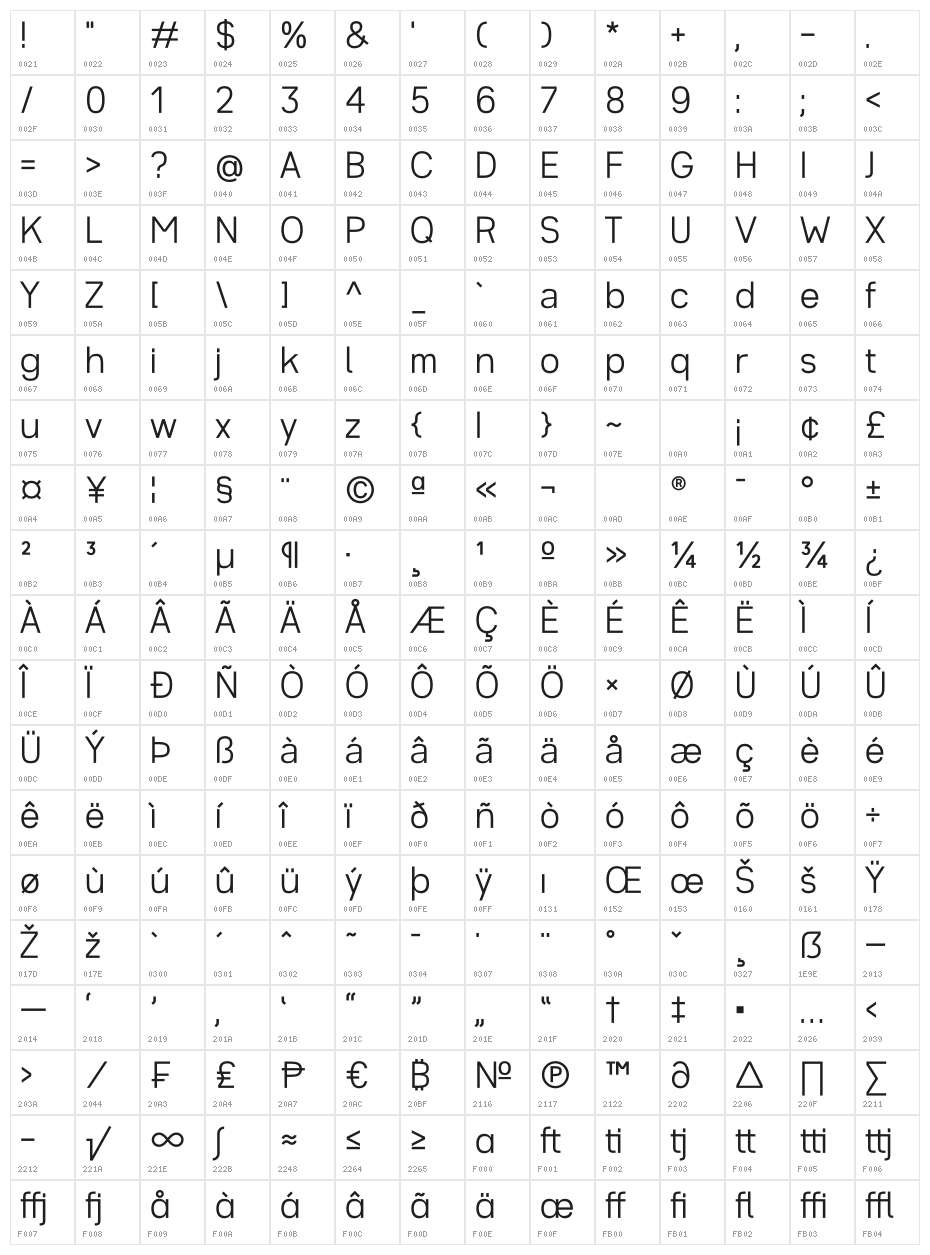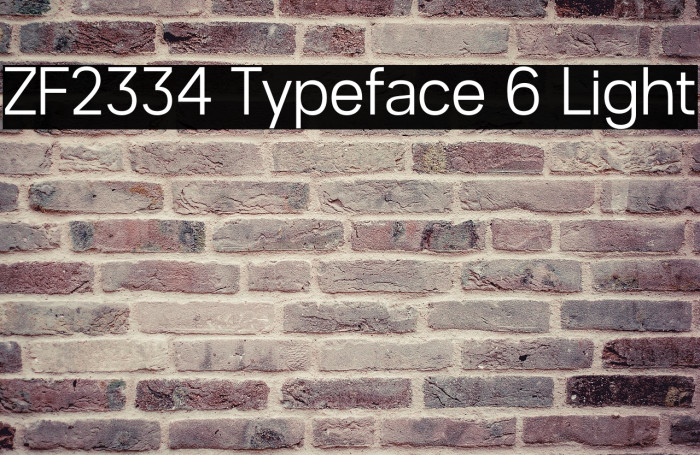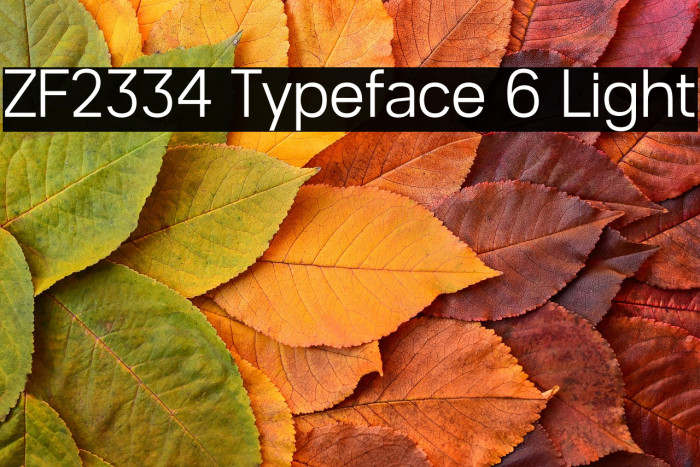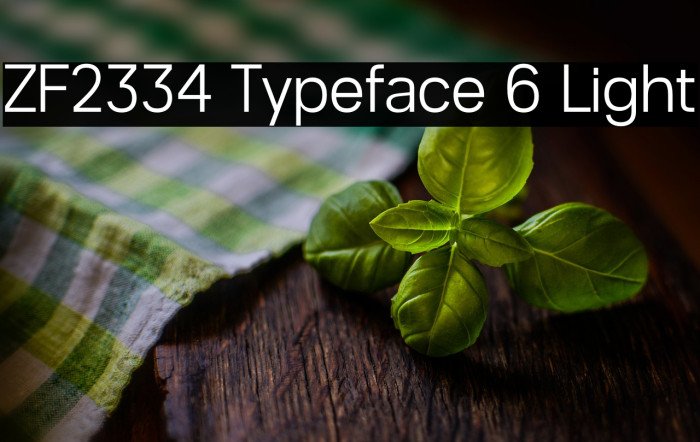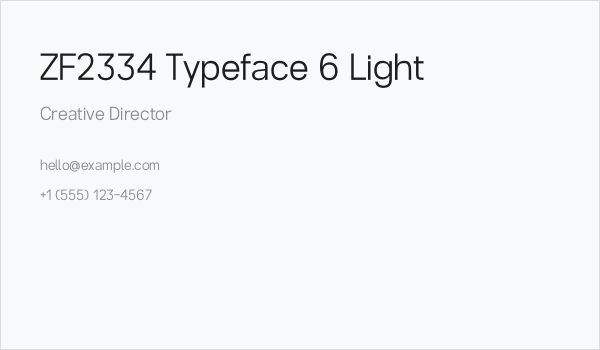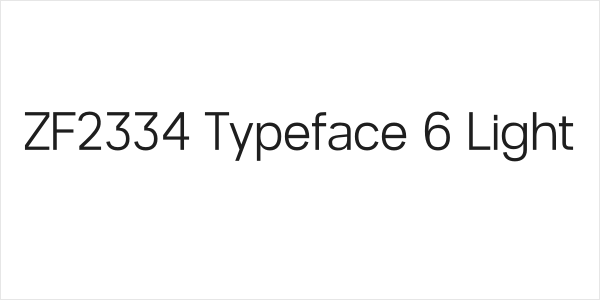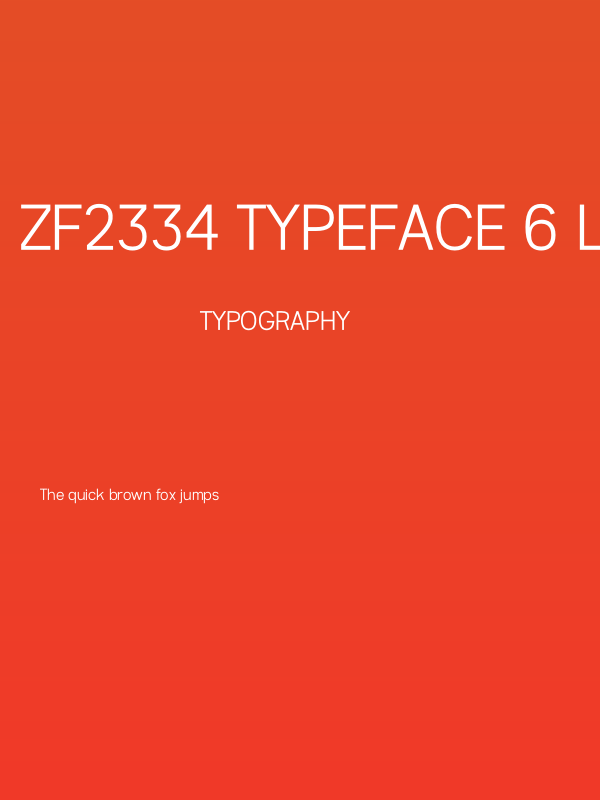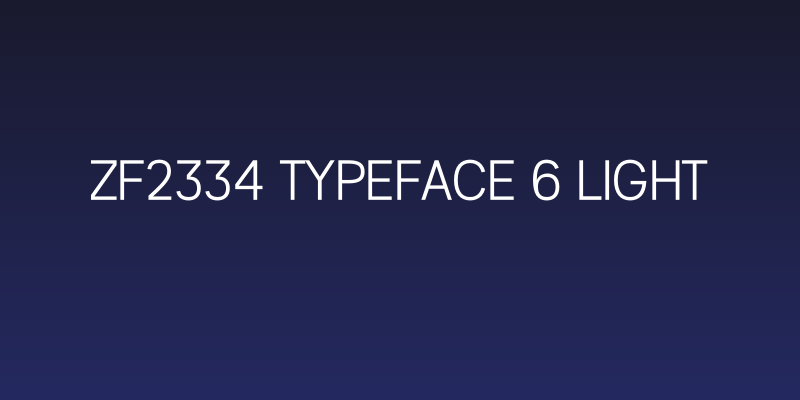
ZF2334 Typeface 6 Light Font
ZF2334 Typeface 6 Light Description
This typeface features a clean and modern design with a light weight, making it suitable for a variety of applications. The characters are well-proportioned, offering a balanced appearance that enhances readability. The font includes both uppercase and lowercase letters, numerals, and a selection of special characters. Its simplicity and elegance make it versatile for both digital and print media. The spacing between characters is normal, providing a comfortable reading experience.
| Use Case | Body text, Headlines, Digital interfaces |
| Proposed Projects | Ideal for web design, corporate branding, editorial layouts, and minimalist posters. |